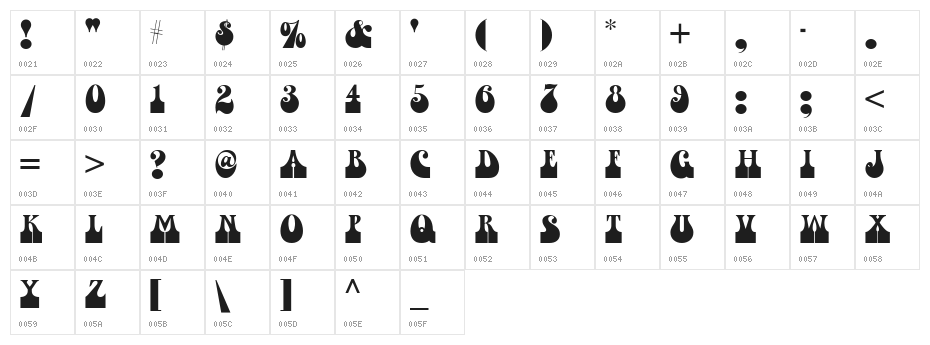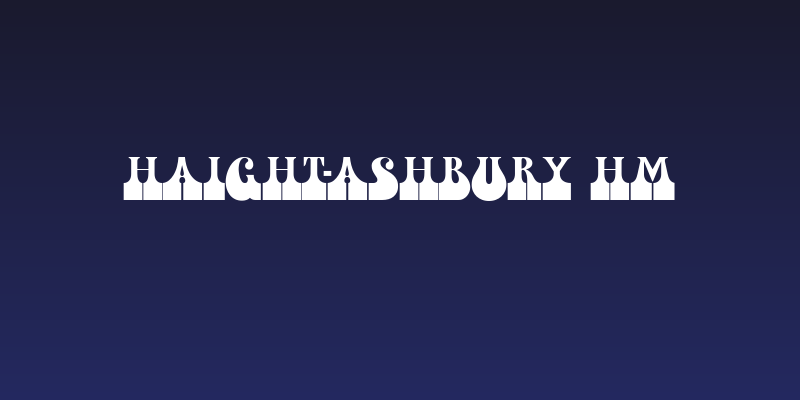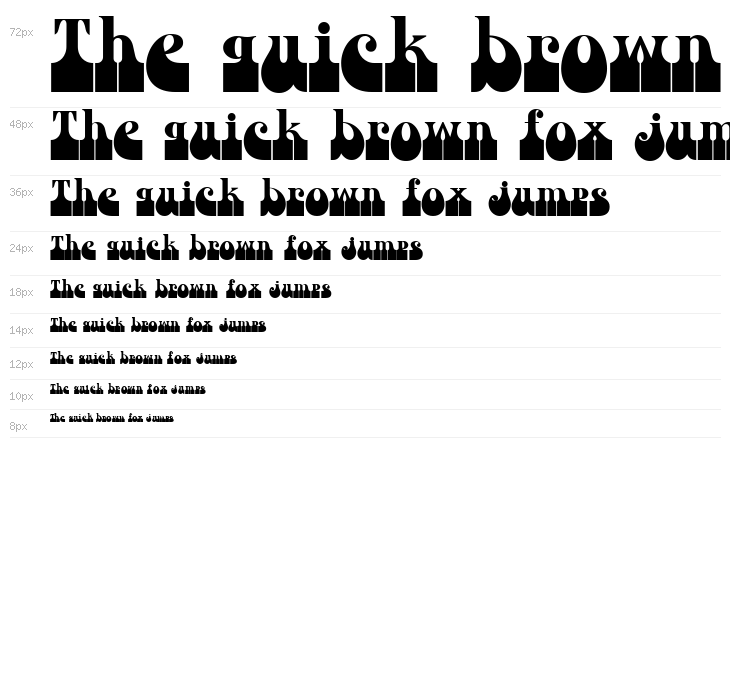
Haight-Ashbury HM Font
Haight-Ashbury HM Description
This font features a bold and playful design with a strong retro influence. The characters are heavily stylized, with thick, rounded strokes and unique cut-out shapes that give it a distinctive, almost psychedelic appearance. The uppercase letters are particularly eye-catching, with exaggerated curves and whimsical forms. The lowercase letters maintain this playful style, offering a cohesive look across the alphabet. Numbers and special characters are equally bold and imaginative, making this font ideal for creative projects that require a touch of nostalgia and flair.
| Proposed Projects | Ideal for vintage-themed posters, album covers, event flyers, and branding that seeks a nostalgic or whimsical touch. |